Thin script fonts are well-known for representing elegance because of cursive strokes and distinctive impressions. As opposed to those qualities, the fonts tend to have low readability, which can have negative impacts on your branding.
So, you must choose the font carefully. And we have selected the best ones, especially for you. Check them out!
13 Thin Script Fonts for Your Successful Elegant Branding
There have been tons of script fonts in recent days. It will take a while to find your one if you explore them one by one. But worry not! Below is the list of elegant script fonts that we have compiled for you.
1. Royal Scarletty Script
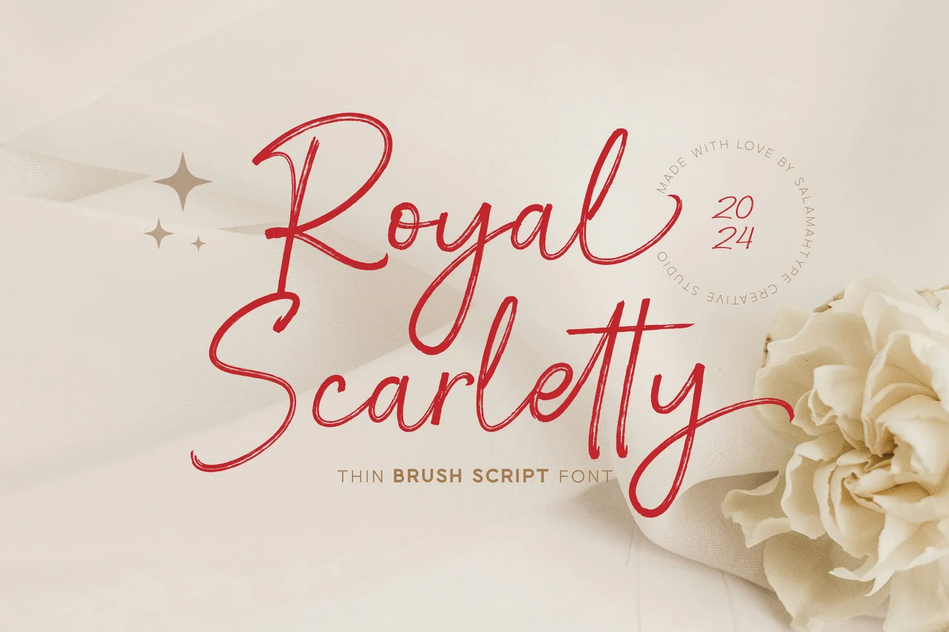
Royal Scarletty’s smooth strokes give an impression of friendliness, yet the thin handwritten script font still represents the strong elegant aura, like reading a formal invitation from a royal family.
2. Hanifah Salamah Script
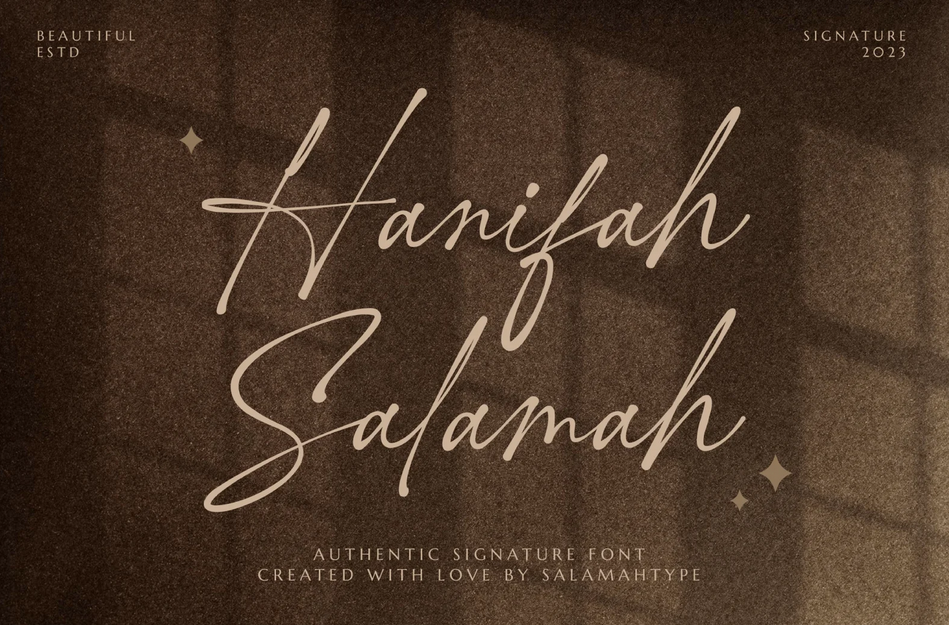
Hanifah Salamah’s authenticity and elegance shine through with just a glance of the seemingly handcrafted lettering: like a refined signature stamped on an important invitation.
3. Bella Signature
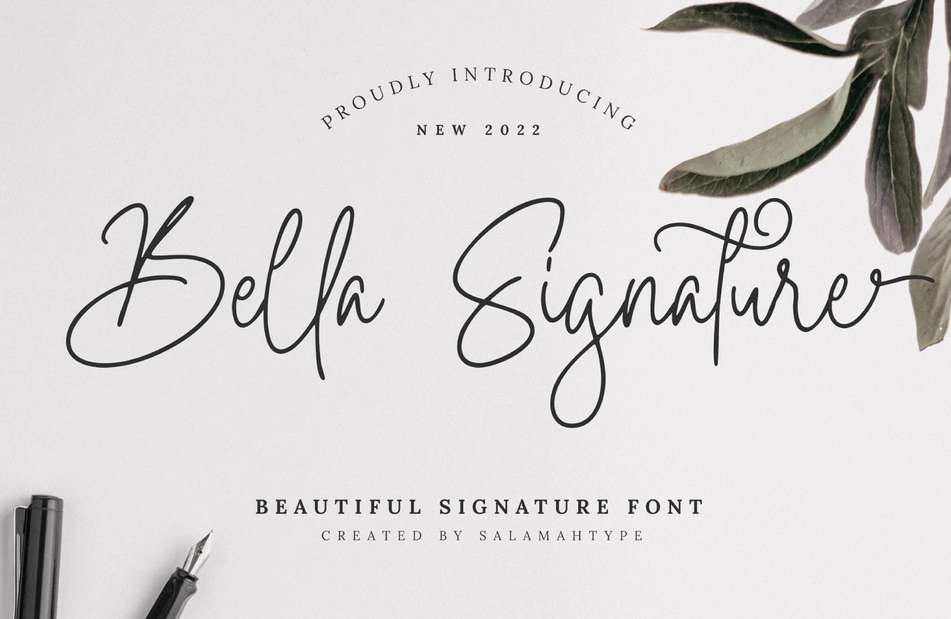
Bella Signature is a calligraphic script with a thin font that represents both creativity and unpredictability in its sophisticated lettering.
4. Amichan Monoline Script
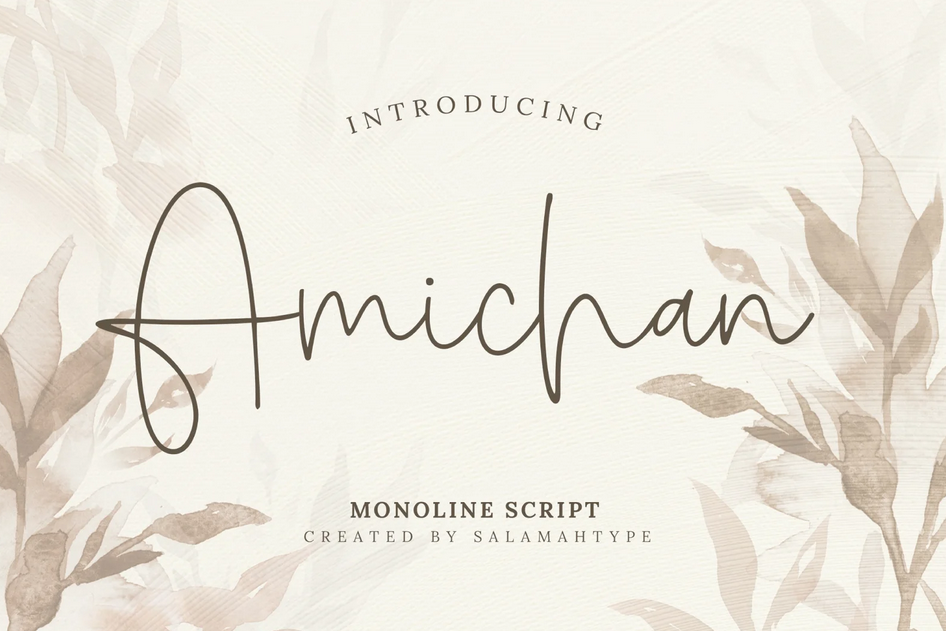
Amichan is a monoline font that mimics the creative craft of a professional artist. It is versatile and fitting to display both elegance and free spirit in your branding.
5. Miss Angel Script Font
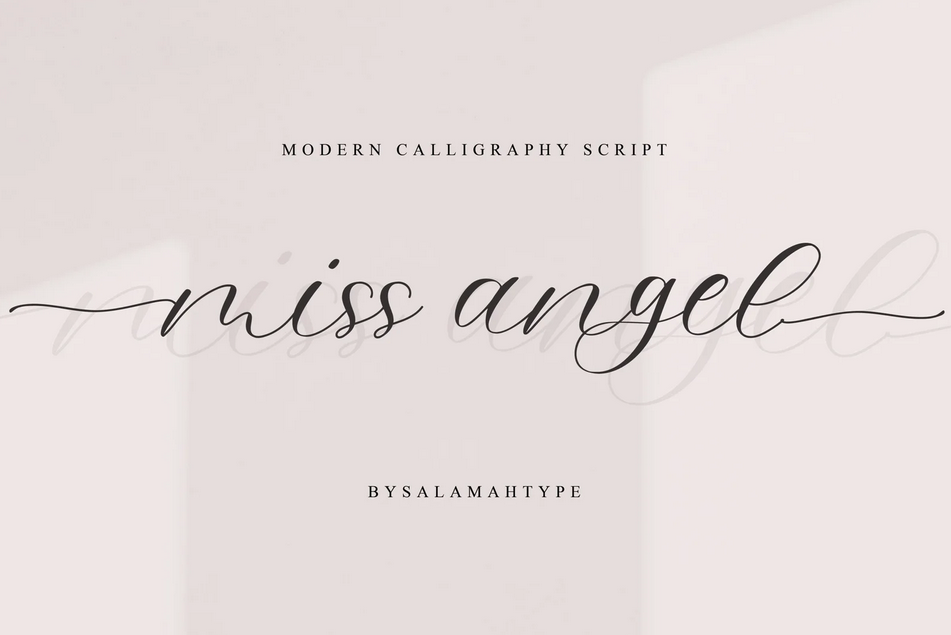
Miss Angel is one of the thin script fonts that represent the well-constructed cursive letters of traditional calligraphy yet with a strong touch of a modern aura.
6. Royalina Script
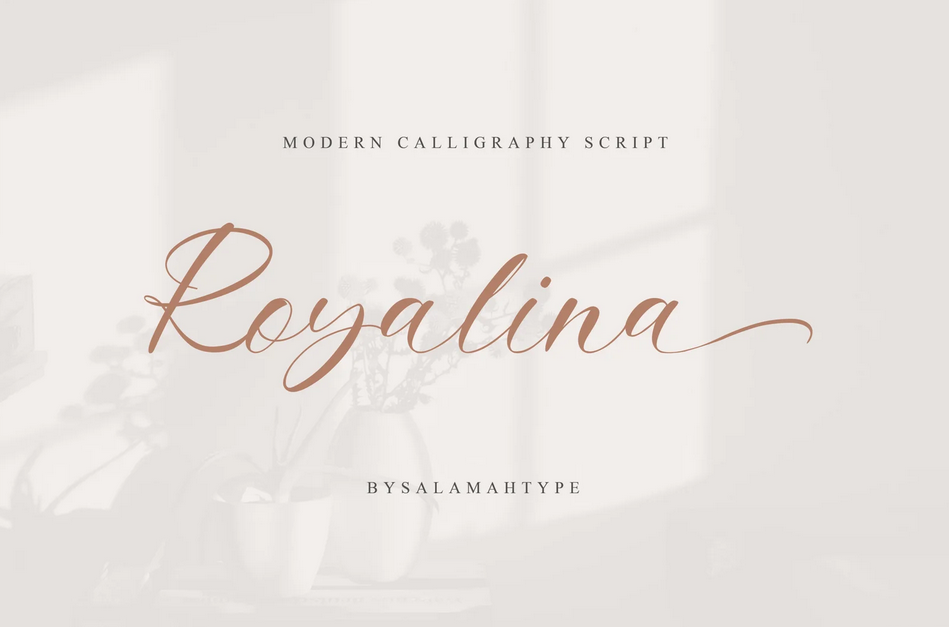
Royalina passionately adopts the essence of traditional script font but with a lower density and some modern decoration glyphs, including the connecting lines.
7. Willy Schaden Free Font
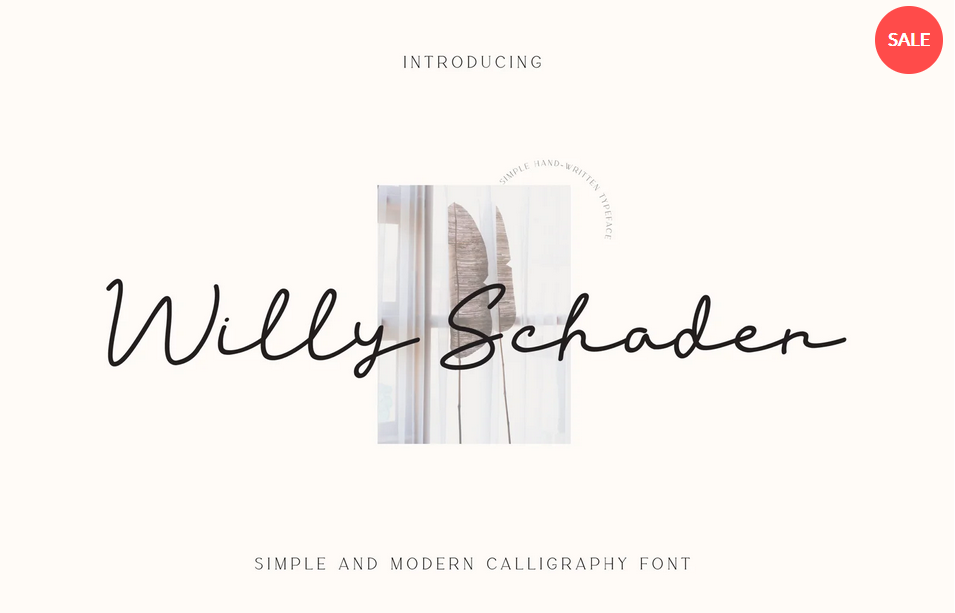
Will Schaden displays a more approachable impression of a script font, with the addition of longer connecting lines in the lowercase lettering.
8. Bugisnia Signature Font
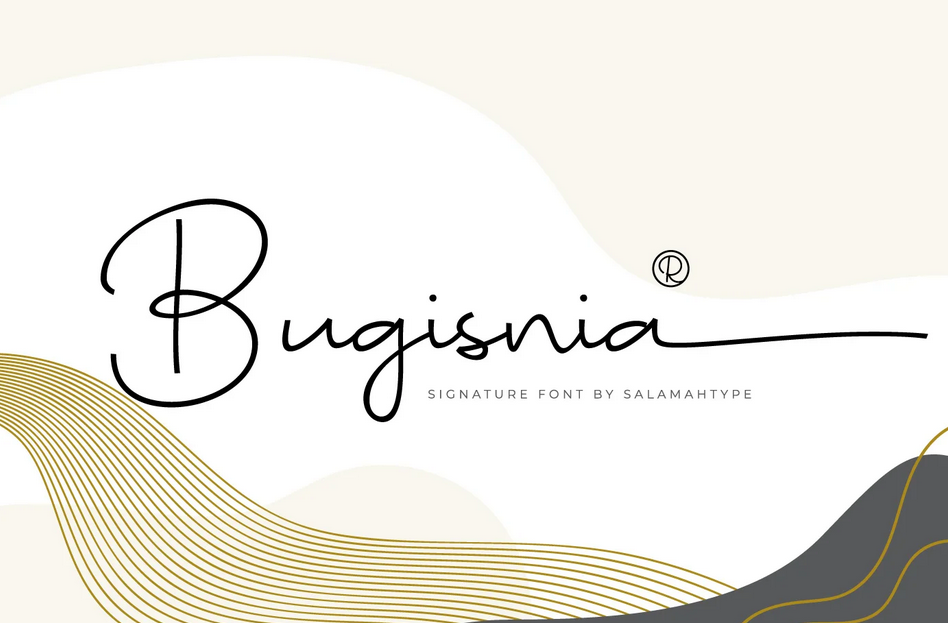
Bugisnia Signature takes inspiration from the formal appearance of professional signatures. Yet, the diverse descenders are the font’s originality, making it perfect for formal projects.
9. Rustic Bettina Script
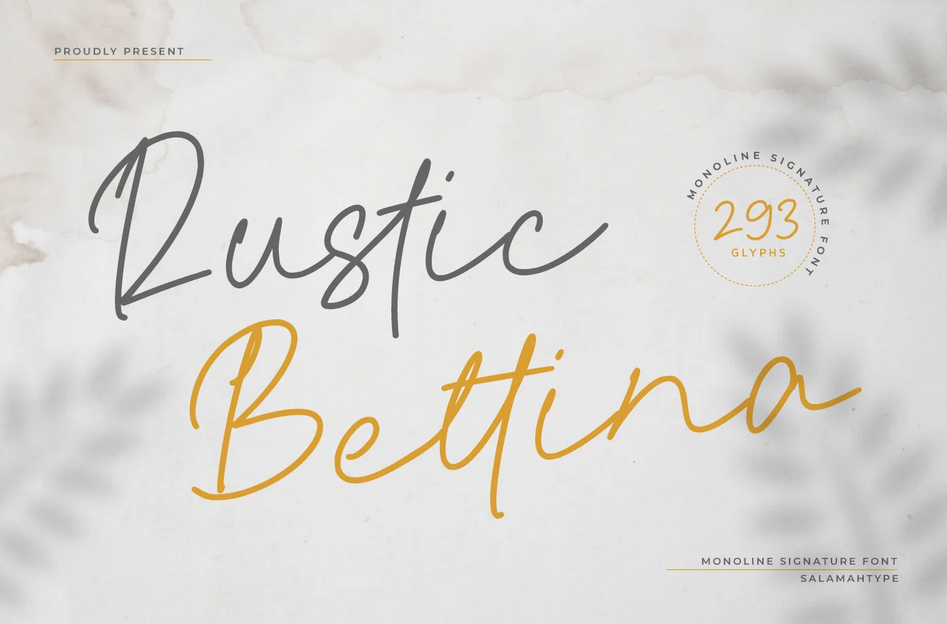
Rustic Bettina’s elegance comes from its letters’ calligraphic style. In addition, the loose thin strokes add more to the vibe of intimacy so that your audience will not feel intimidated.
10. Black Raven
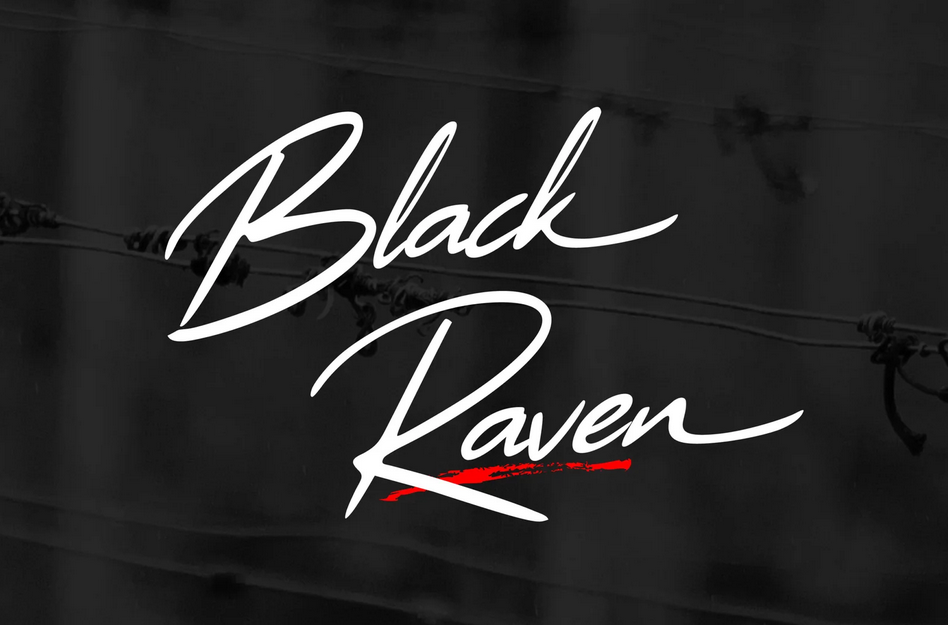
Black Raven lives up to its name. It is one of the thin script fonts that have the combination of the classic script. Additionally, the brush strokes just pique the interest of those who lay eyes on it.
11. Riday Parcia – Modern Script Font
Another script font with a fusion between the traditional and the modern touches is Riday Parcia. Its graceful yet defined strokes increase readability without losing its elegance.
12. Rachel Karlie
Rachel Karlie’s strokes and swashes appear so impeccable, just like a professional penmanship’s elegant creation.
13. Rubady Game
The medium-weight Rubady Game displays boldness yet the script-like strokes and decorative decenders maintain the elegance of the font.
Need More Variations of Fonts?
Thin script fonts are always charming because of their sophisticated strokes and elegant auras. However, the distinctive characteristic may sometimes give your audience a hard time reading what you wish to convey in your branding. One of the ways to minimize the risk is the combination of fonts.